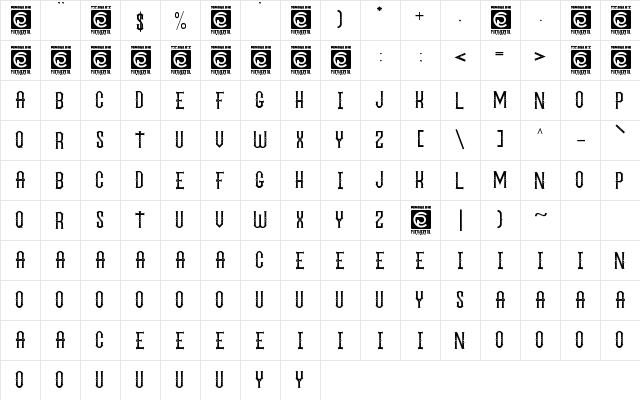
The Circus Show FreeVersion Regular
| Foundry | Putracetol Studio |
| Designer | Putra Novembria Candra Kusuma |
Design Context for The Circus Show FreeVersion Typeface
The Circus Show FreeVersion is a composed and adaptable typeface that performs quietly and consistently across a wide range of design contexts.